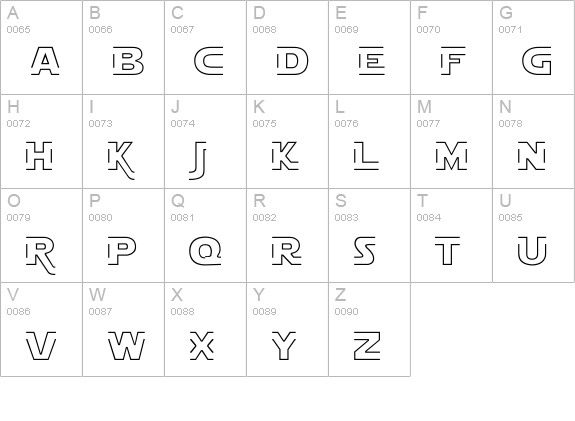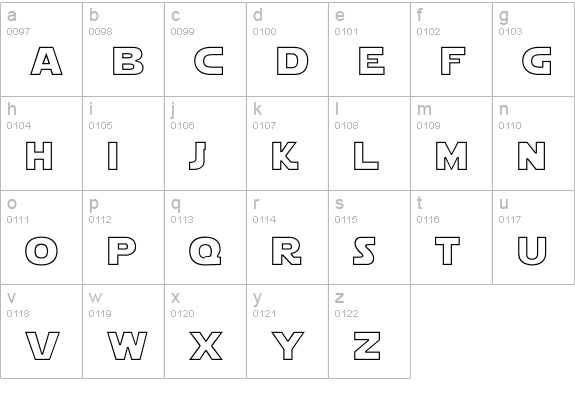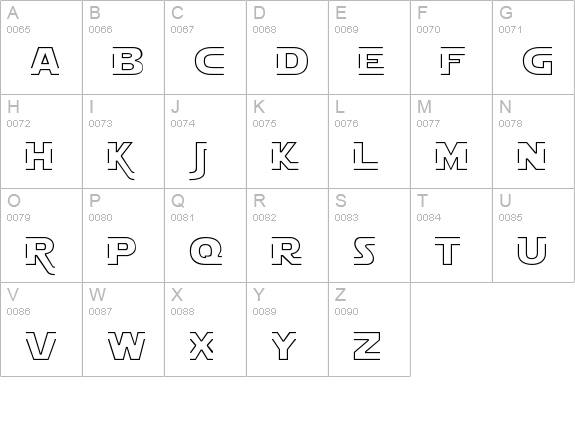
Star Jedi Hollow Font Details
Star Jedi Hollow is a mesmerizing and captivating font that embodies the spirit of adventure and epic storytelling. Inspired by the iconic Star Wars franchise, this font transports you to a galaxy far, far away with its intricate and futuristic design. With its hollow and outlined style, Star Jedi Hollow adds a touch of mystery and intrigue to any project. Whether you're designing a movie poster, creating sci-fi inspired graphics, or crafting an otherworldly logo, this font will surely make a bold statement. What makes Star Jedi Hollow even more remarkable is that it is free! Yes, you heard it right - this incredible font is freely available to download at FontsMarket.com. This means that you can unleash your creativity without any restrictions or limitations. The attention to detail in Star Jedi Hollow is truly exceptional. Each letter and character is meticulously crafted, ensuring that every word you create with this font tells its own unique story. The sharp angles, clean lines, and futuristic elements combine effortlessly to create a visually stunning experience. Whether you're a fan of the Star Wars universe or simply appreciate exceptional typography, Star Jedi Hollow is a must-have font in your collection. Its versatility and eye-catching design make it suitable for a wide range of projects, from digital designs to print materials. So go ahead and embrace the power of Star Jedi Hollow. Let your imagination run wild and create captivating designs that leave a lasting impression. Remember, this font is free and ready for you to download at FontsMarket.com. So why wait? Start your next adventure in design with Star Jedi Hollow!